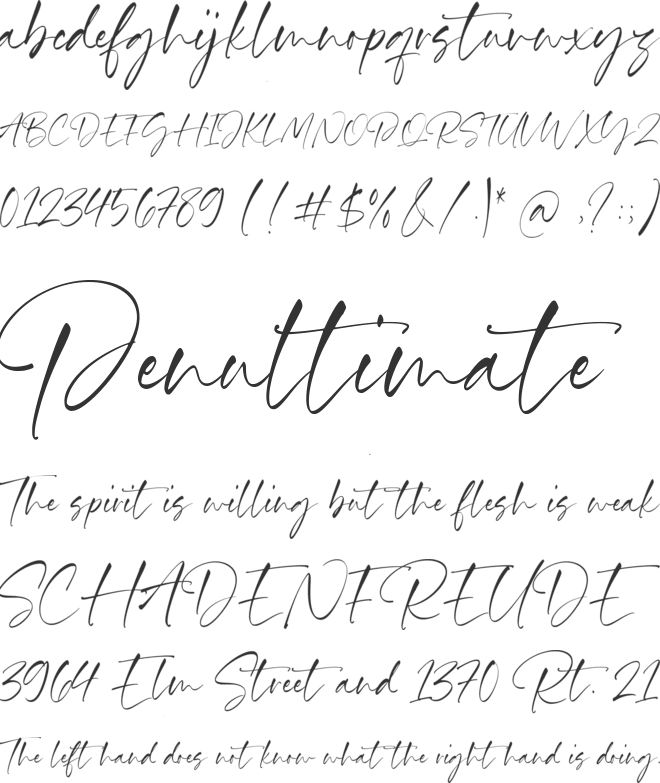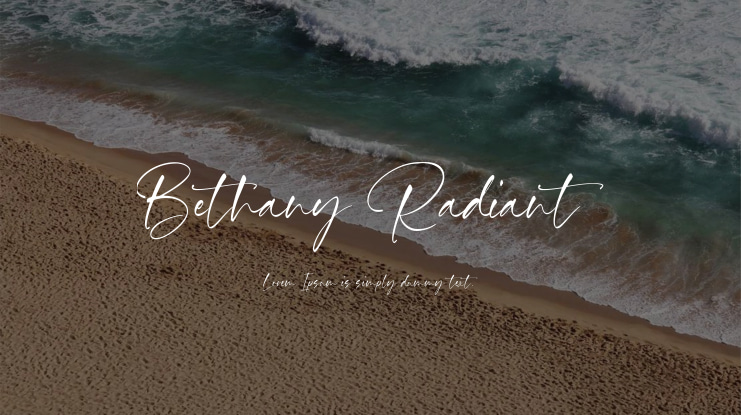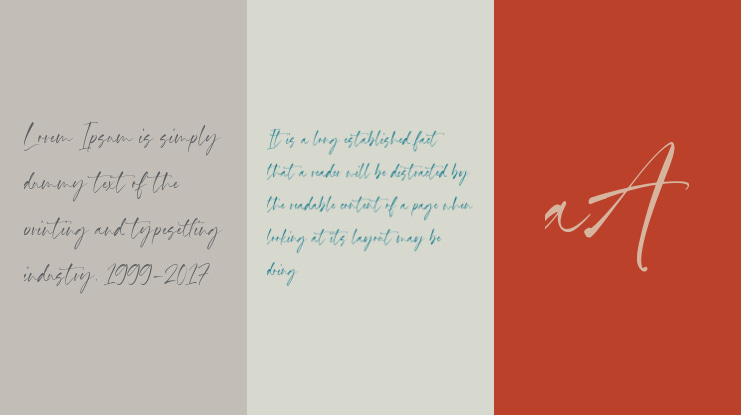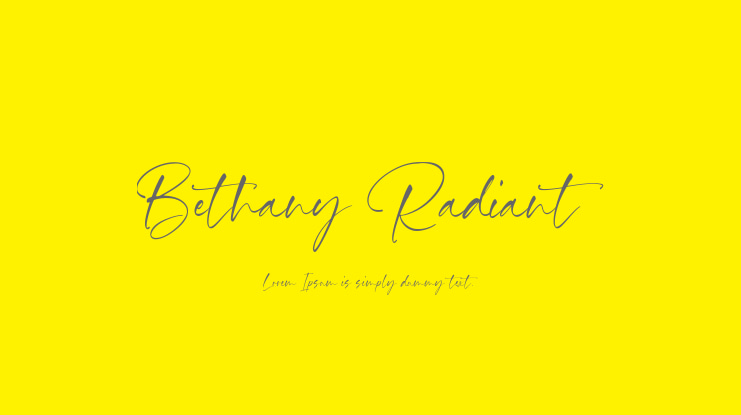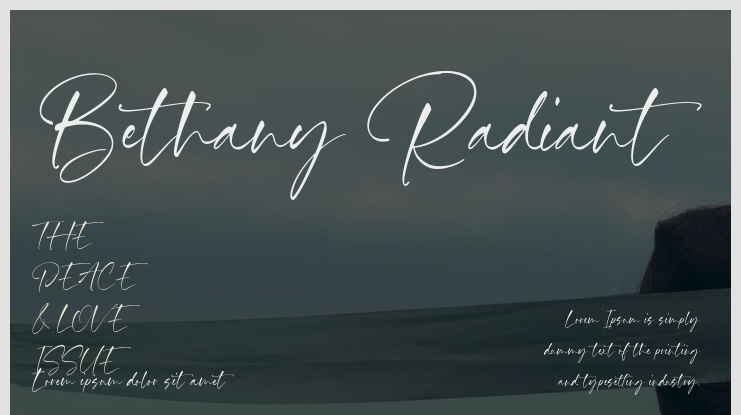
Bethany Radiant is a Modern Handwritten Script Font
This font is a fresh and contemporary choice for your design projects. With its unique and expressive letterforms, this font brings a touch of flair. The fluid and smooth strokes give the Bethany Radiant font a modern and dynamic aesthetic, perfect for adding a trendy and fashionable touch to your branding materials, packaging designs, and social media graphics. Whether you're aiming for a stylish and modern look or a playful and energetic vibe, the Bethany Radiant font offers versatility and charm. Embrace the modern energy of the Bethany Radiant handwritten script font and make your designs shine with a radiant elegance
Bethany Radiant Font also supports multilingualism.
Bethany Radiant Font features premium :
-Full Set of standard alphabet and punctuation